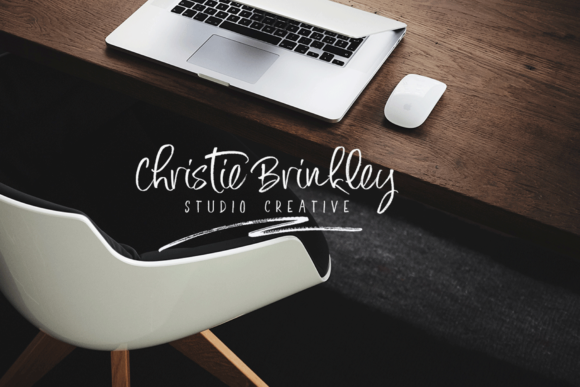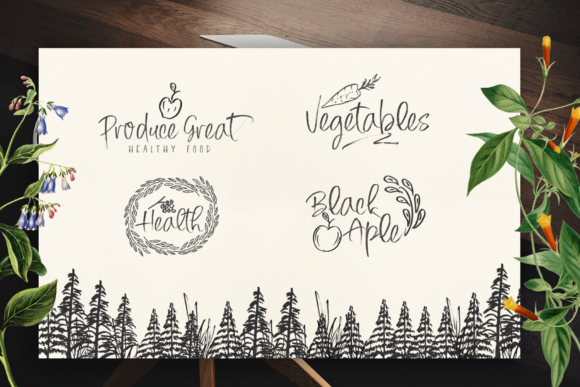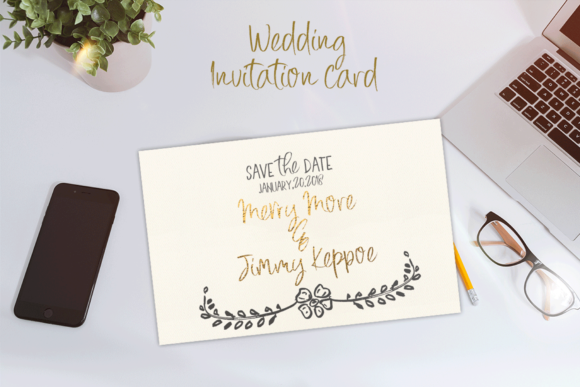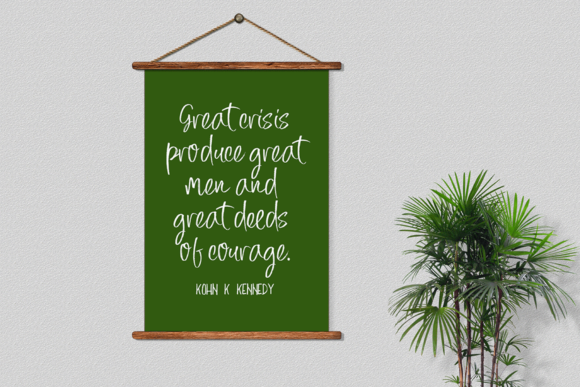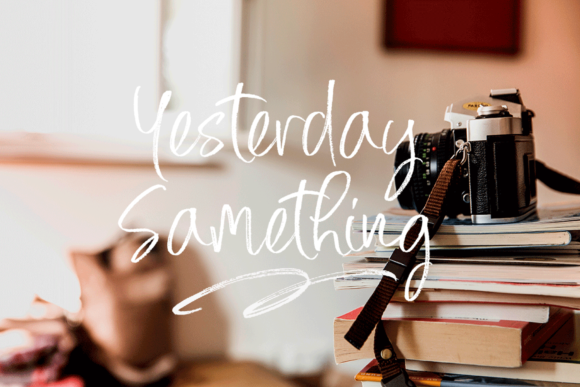
Introduction to Mighty Girl Font
Mighty Girl duo is a match made in heaven.
This handwritten font is the perfect fit for all of your logos, branding, social media, and crafty DIY projects .
Key Features of Mighty Girl Font
Why Choose Mighty Girl Font?